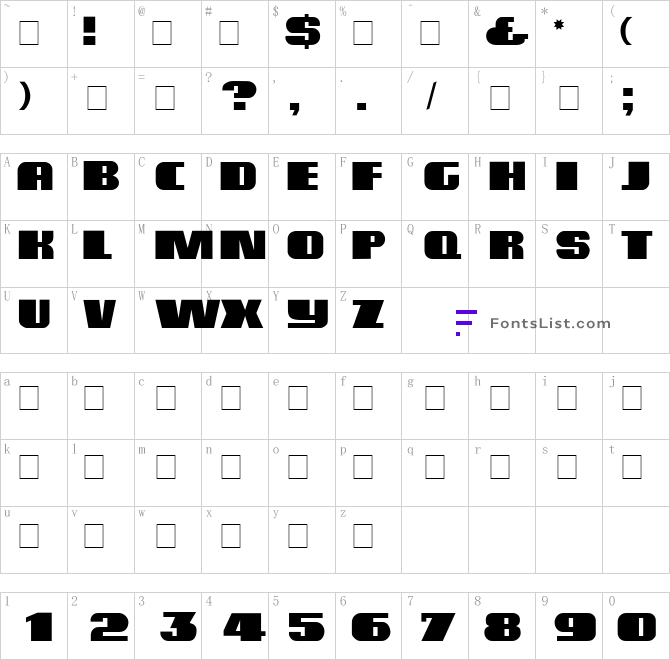
- Font Name:Amplio Display Caps SSi
Amplio-Display-Caps-SSi.ttf is a very beautiful artistic font, Amplio-Display-Caps-SSi.ttf is widely used in the design and printing of various books and pictures,Amplio-Display-Caps-SSi.ttf has a strong visual impact,Amplio-Display-Caps-SSi.ttf is a commonly used font in newspapers, magazines and books, and is used in posters, e-commerce Poster design, store design, logo design, font design and other fields.Amplio-Display-Caps-SSi.